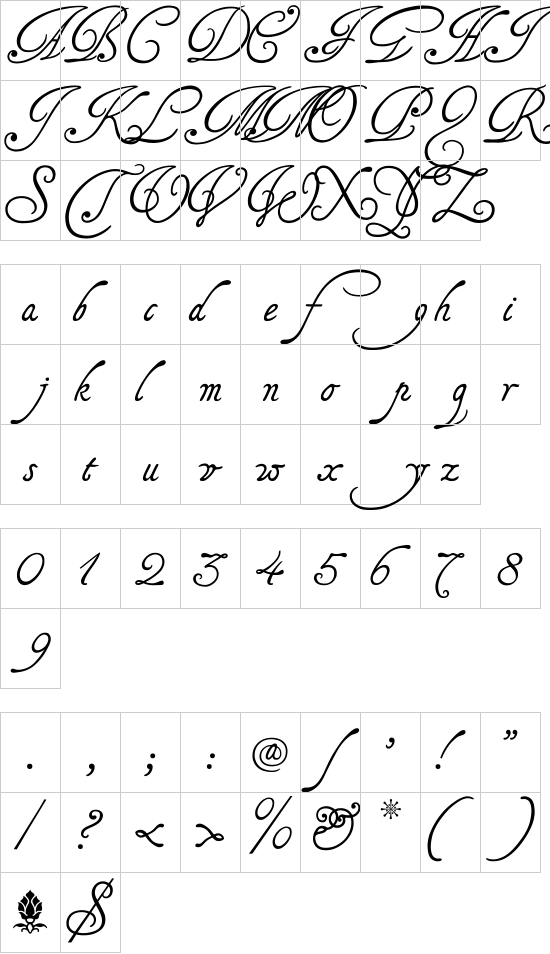
Tagettes is a flowing script font with connected strokes and a light, decorative hand. The letters join through thin, graceful loops with delicate variation in weight, giving the alphabet an airy, elegant rhythm that feels gently hand-lettered.
Its graceful cursive style suits invitations, greeting cards, signature logos, and branding that wants a soft, elegant touch. Tagettes is free to download as a TrueType file, and you can preview your own text on the page to see how the light, connected letters flow across a name or invitation line before you download and use them.